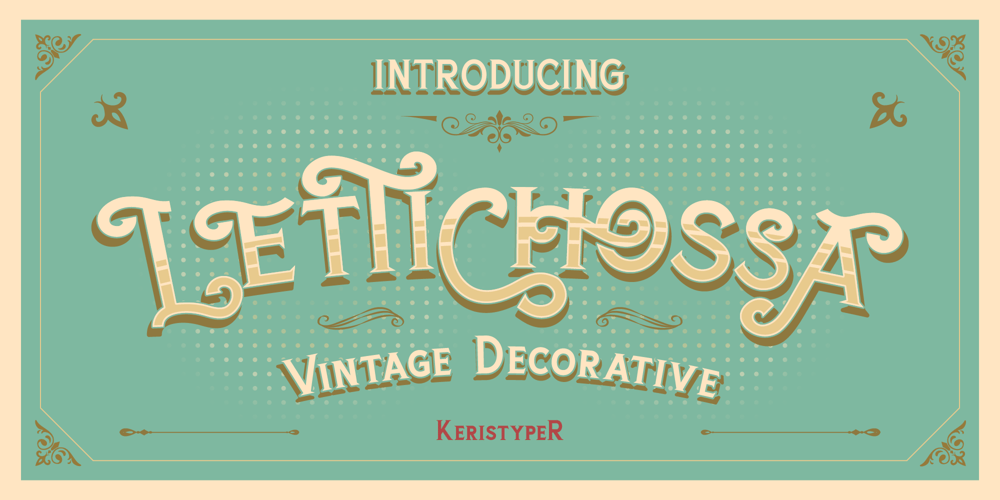
Lettichossa Font Family was designed by Tezar Tantular and published by Keristyper Studio. Lettichossa contains 1 styles and family package options. Lettichossa is an old-fashioned typeface, inspired by victorian and ornamental typography styles. This font is good for logo design, Social media, Movie Titles, Books Titles, short text even long text letters, and good for your secondary text font with sans or serif.**Featured:*** Standard Uppercase & Lowercase* Numeral & Punctuation* Multilingual : ä ö ü Ä Ö Ü ß ¿ ¡* Alternate & Ligature* PUA encodedWe recommend programs that support the OpenType feature and the Glyphs panel such as Adobe applications or Corel Draw. so you can use all the variations of the glyphs.Hope you enjoy our fonts!